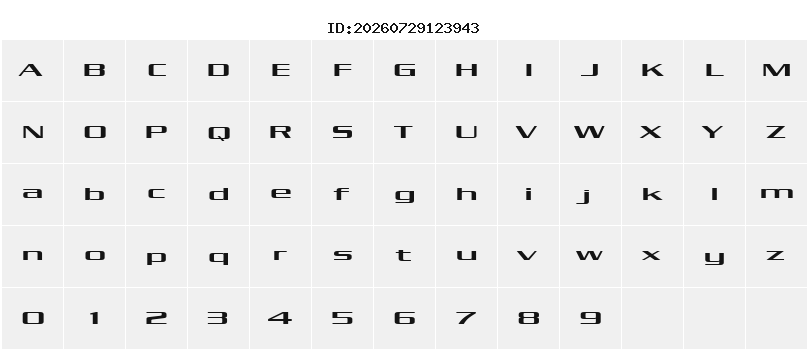
• Font Name: Kubra_medium
• Designer: Ersenak Xtreme
About Kubra_medium.ttf
Kubra_medium.ttf is a modern, elegant sans-serif font designed for ultimate readability and visual harmony. Perfect for branding, headlines, web design, and print materials.